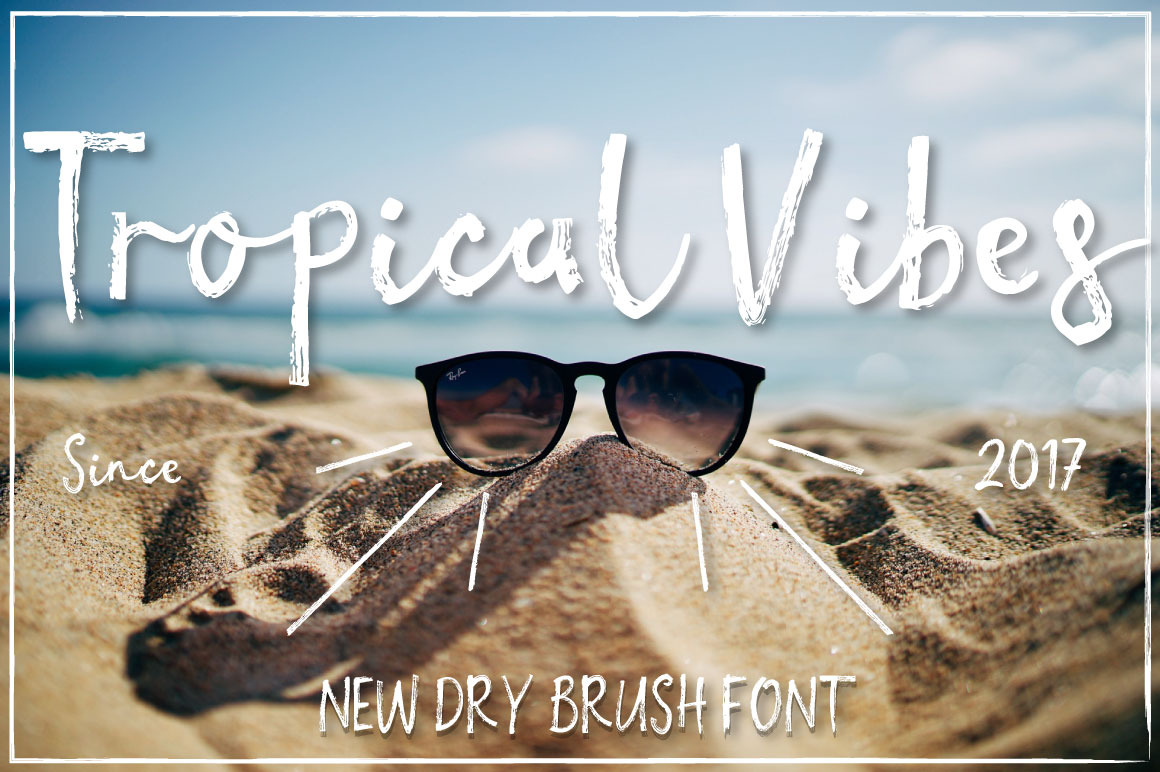
Tropical vibes - Dry brush font
TROPICAL VIBES - DRY BRUSH FONT
This time I present to you the Tropical vibes font, is a unique, handmade, feminine and totally awesome font that can help you create amazing invitations, give your brand an original style, elaborate the most amazing logos and everything you have in mind.
- Cursive, textured and 100% handmade
- It got hispanic characters, ¡Qué viva el poder de la ñ!
- Special characters are included.
- Perfect for pairing